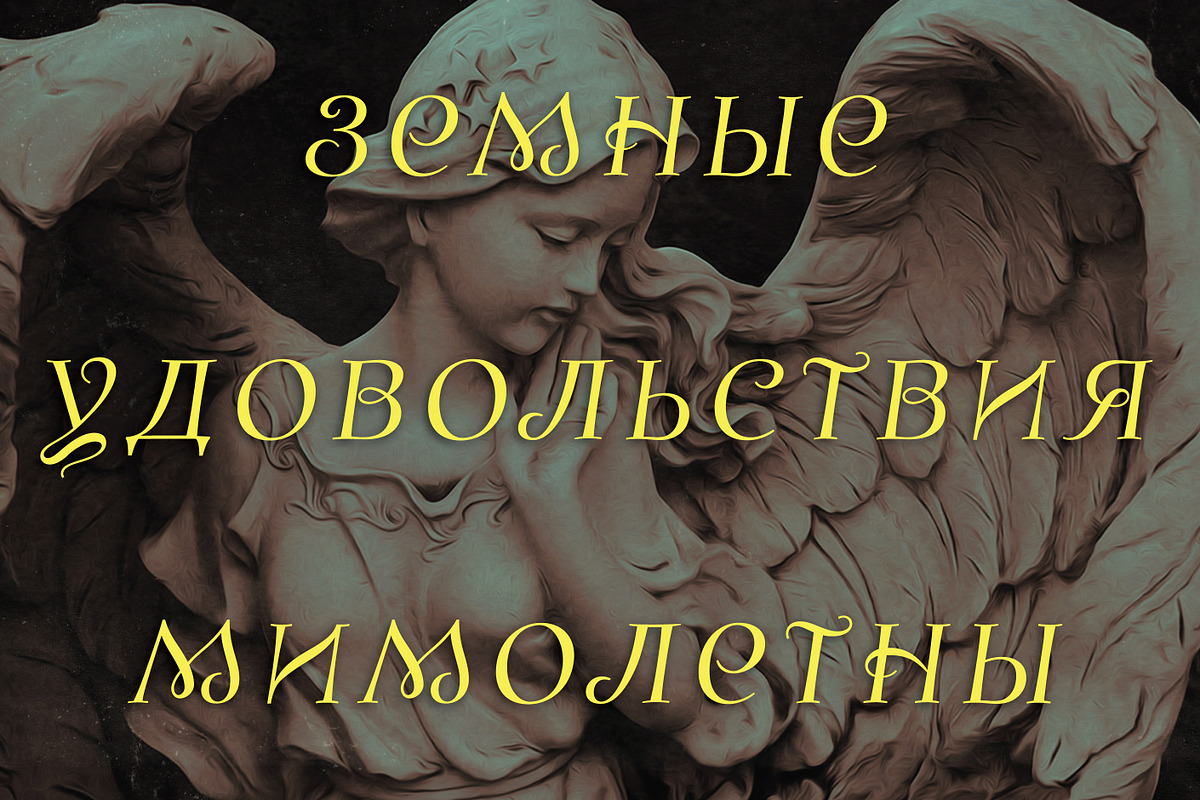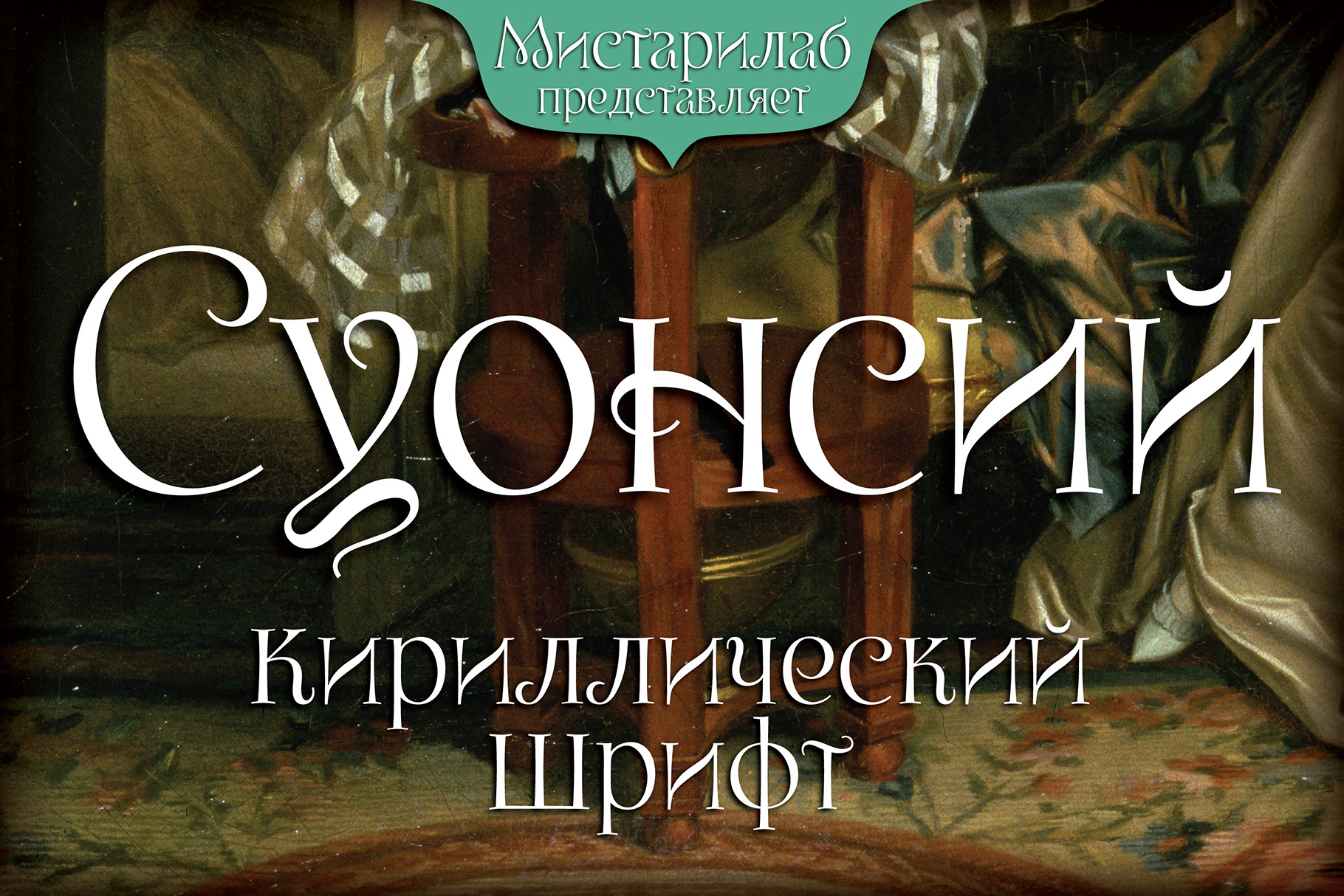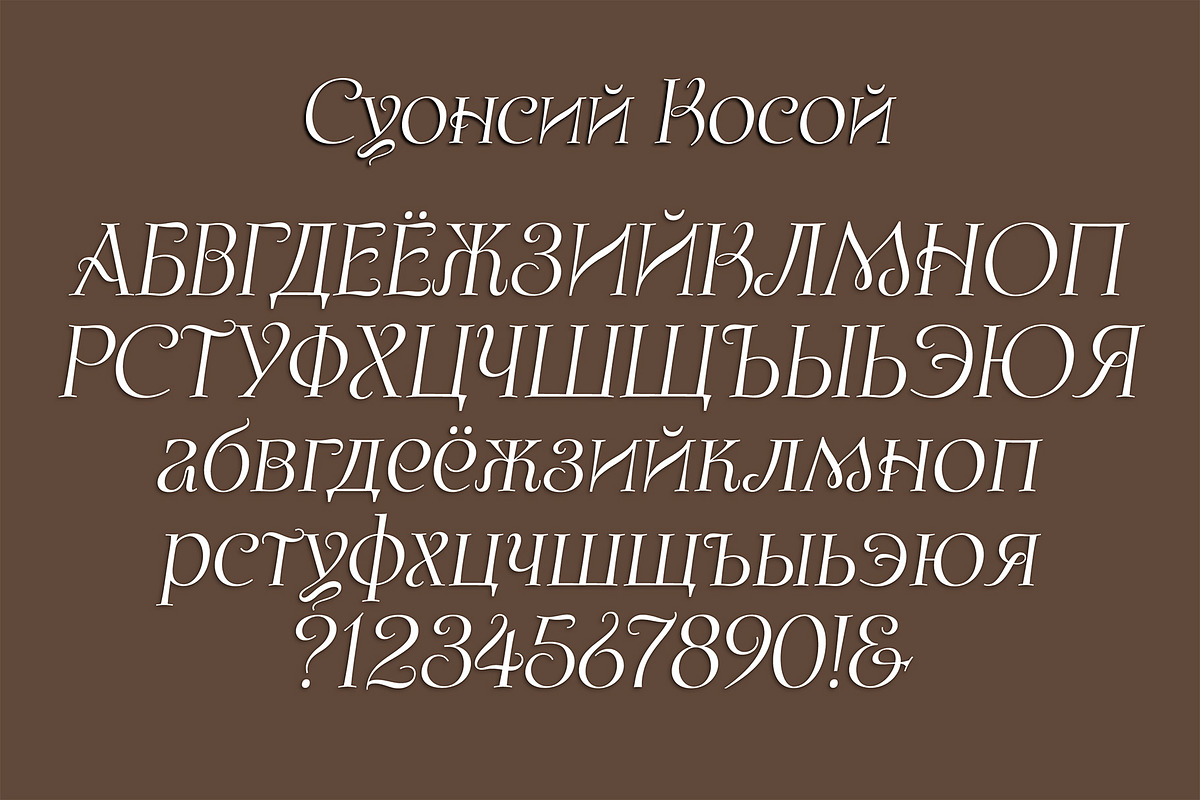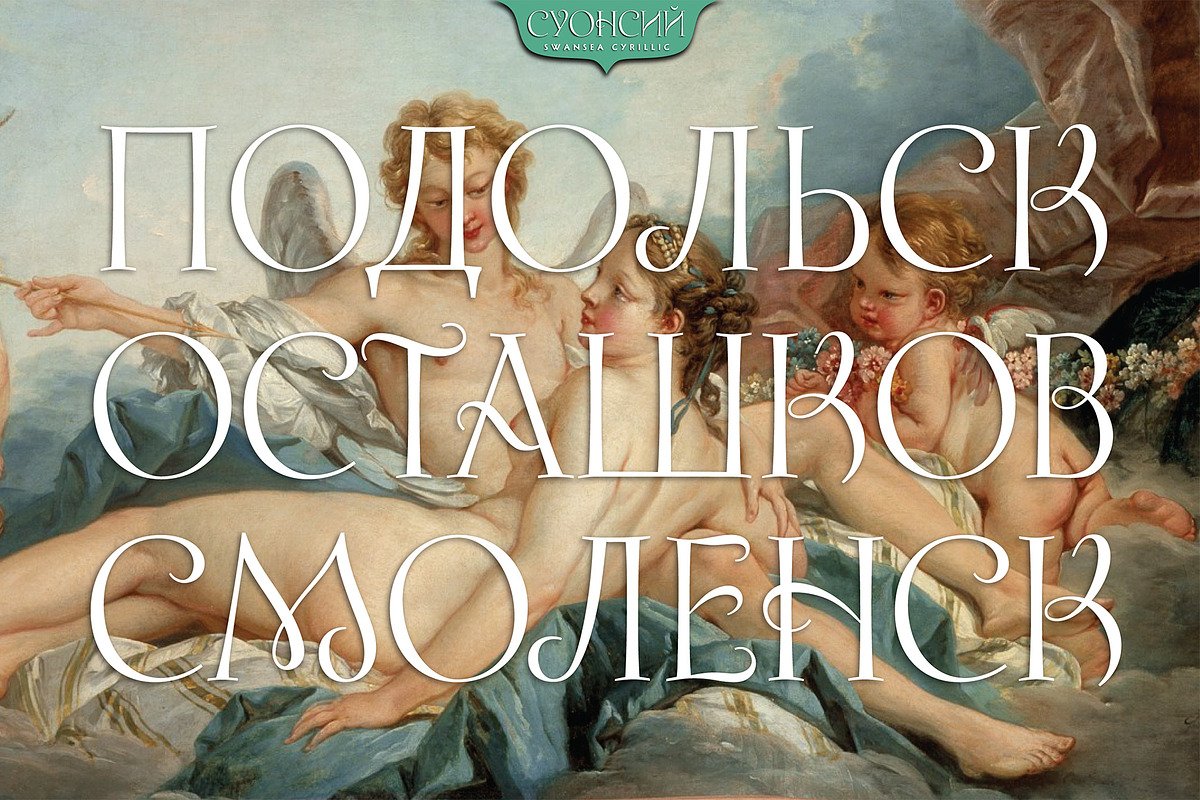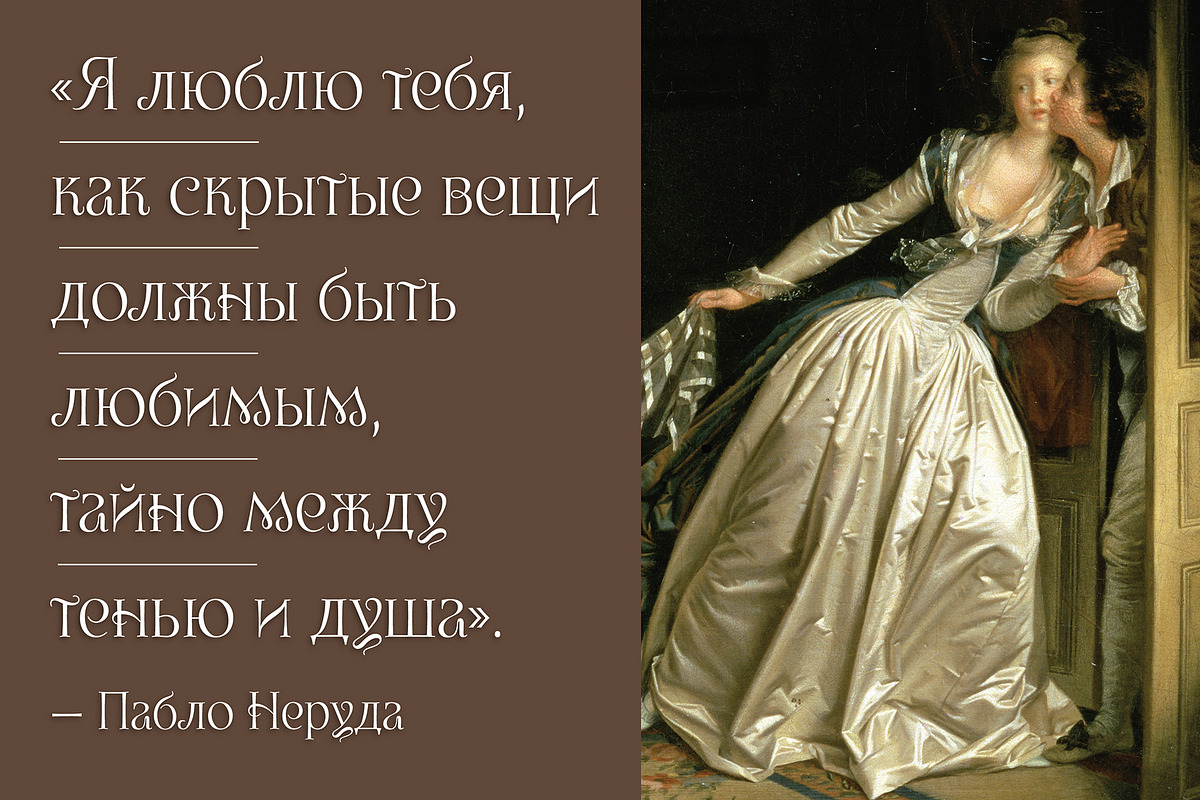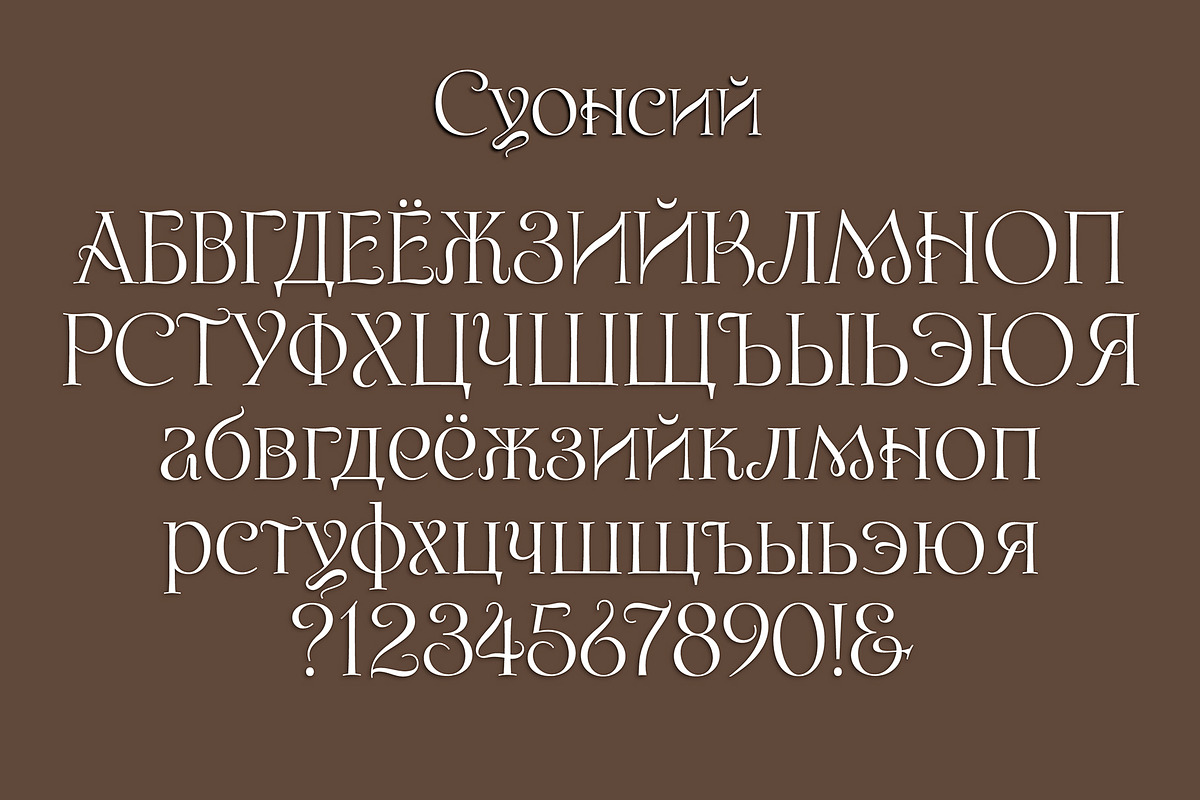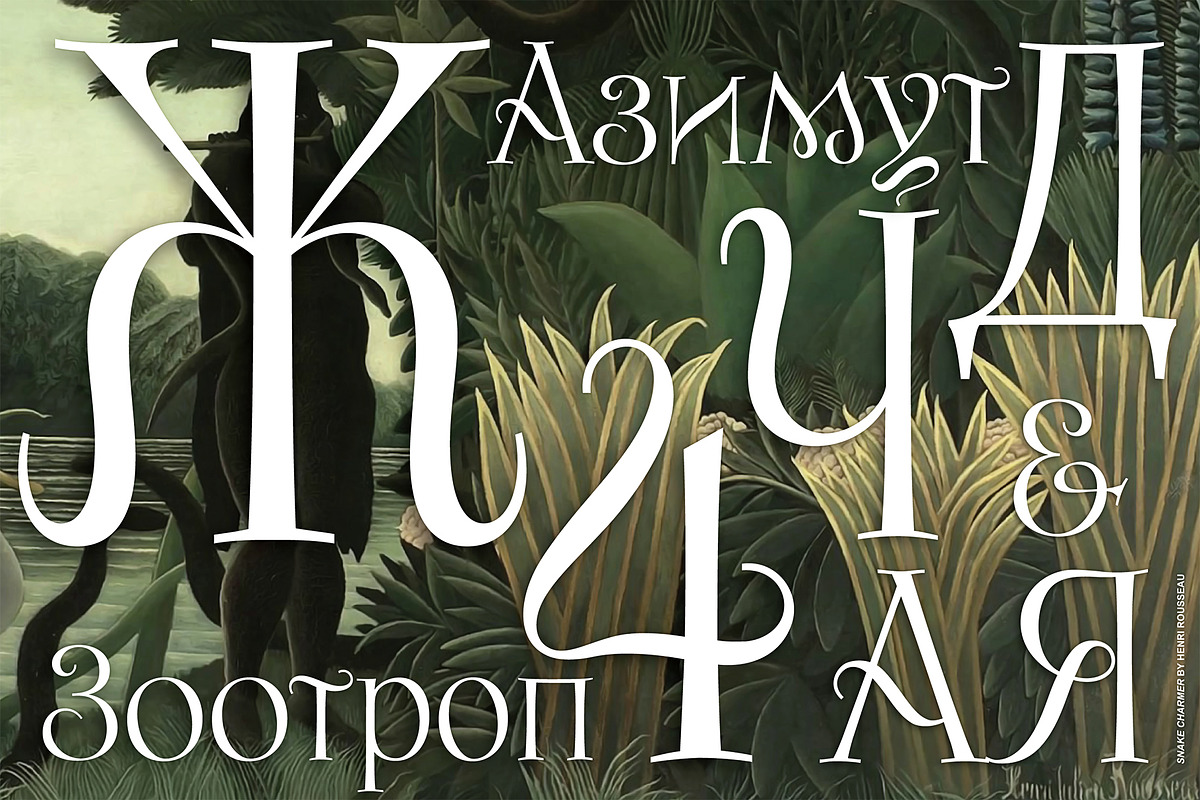
Swansea Cyrillic Font
Кириллический шрифт Суонсий — это богато украшенный и элегантный шрифт с засечками, который имеет варианты как прямого, так и курсивного начертания. Штрихи Старого Света и цветочные украшения сливаются с современным единообразием, что делает этот шрифт универсальным и полезным во многих контекстах. Он отлично подходит для роскошных фирменных приложений, антикварных тем, публикаций по изобразительному искусству, моды и многого другого.
Swansea font is an ornate and elegant serif typeface providing both roman and italic variants. The old world strokes and flourish embellishments are fused with a modern uniformity that makes this type versatile and useful in many contexts.
This font contains the glyph complement needed for Russian, Ukrainian, Belarusian, Bulgarian, and Serbian. Also contains all roman alphabet characters.
It's excellent for posh specialty branding applications, antique themes, fine art publications, fashion, and much more